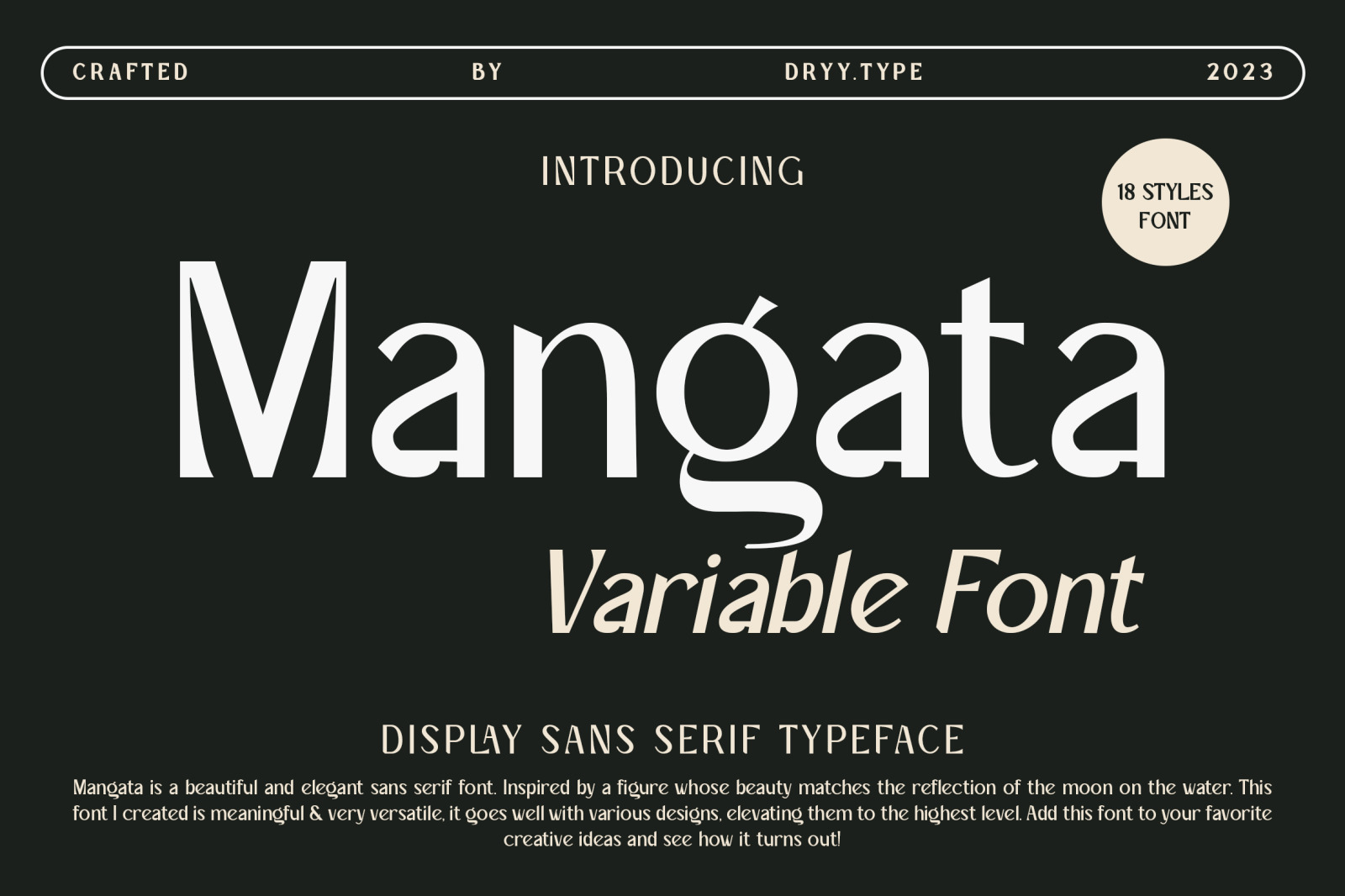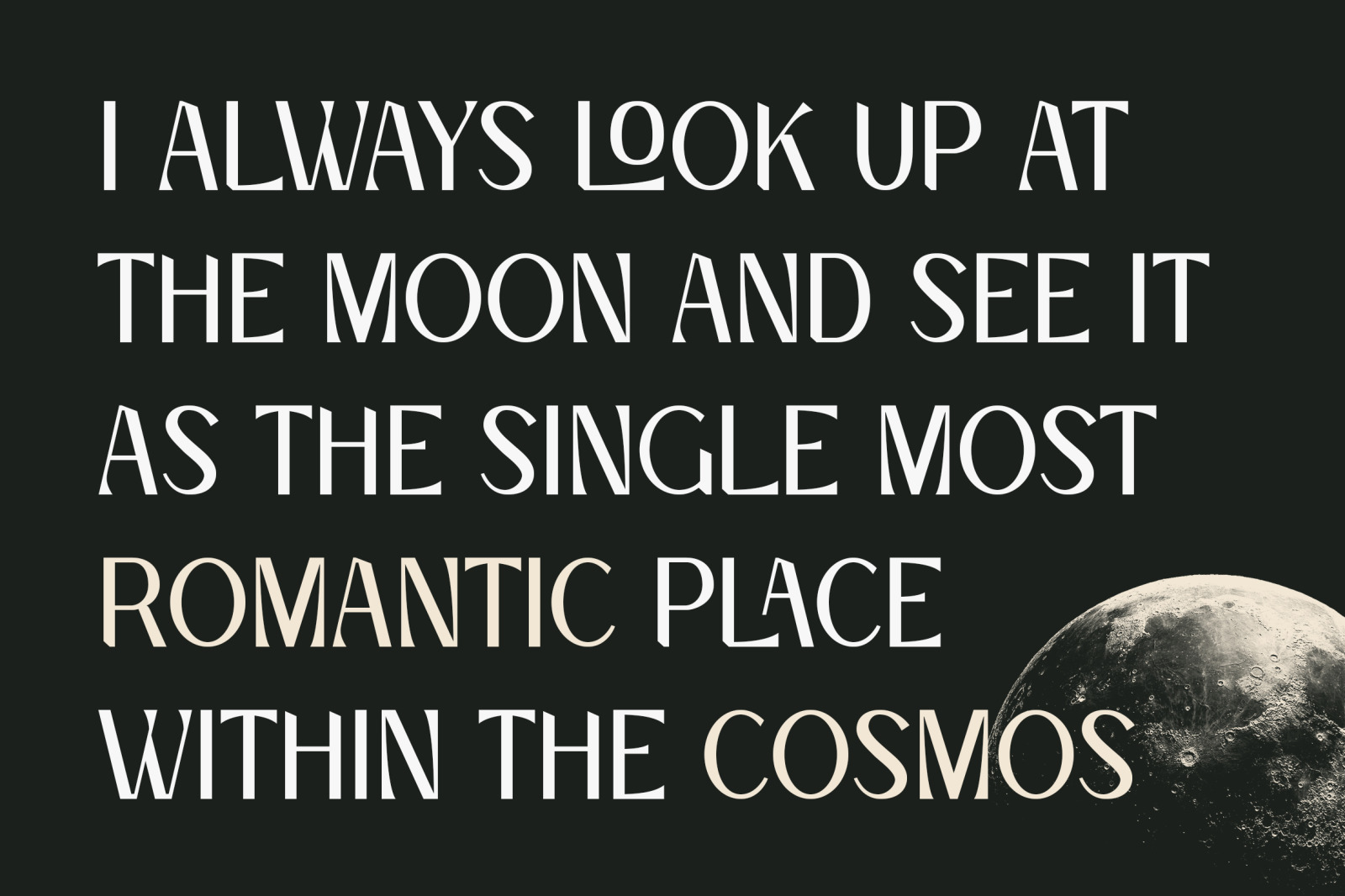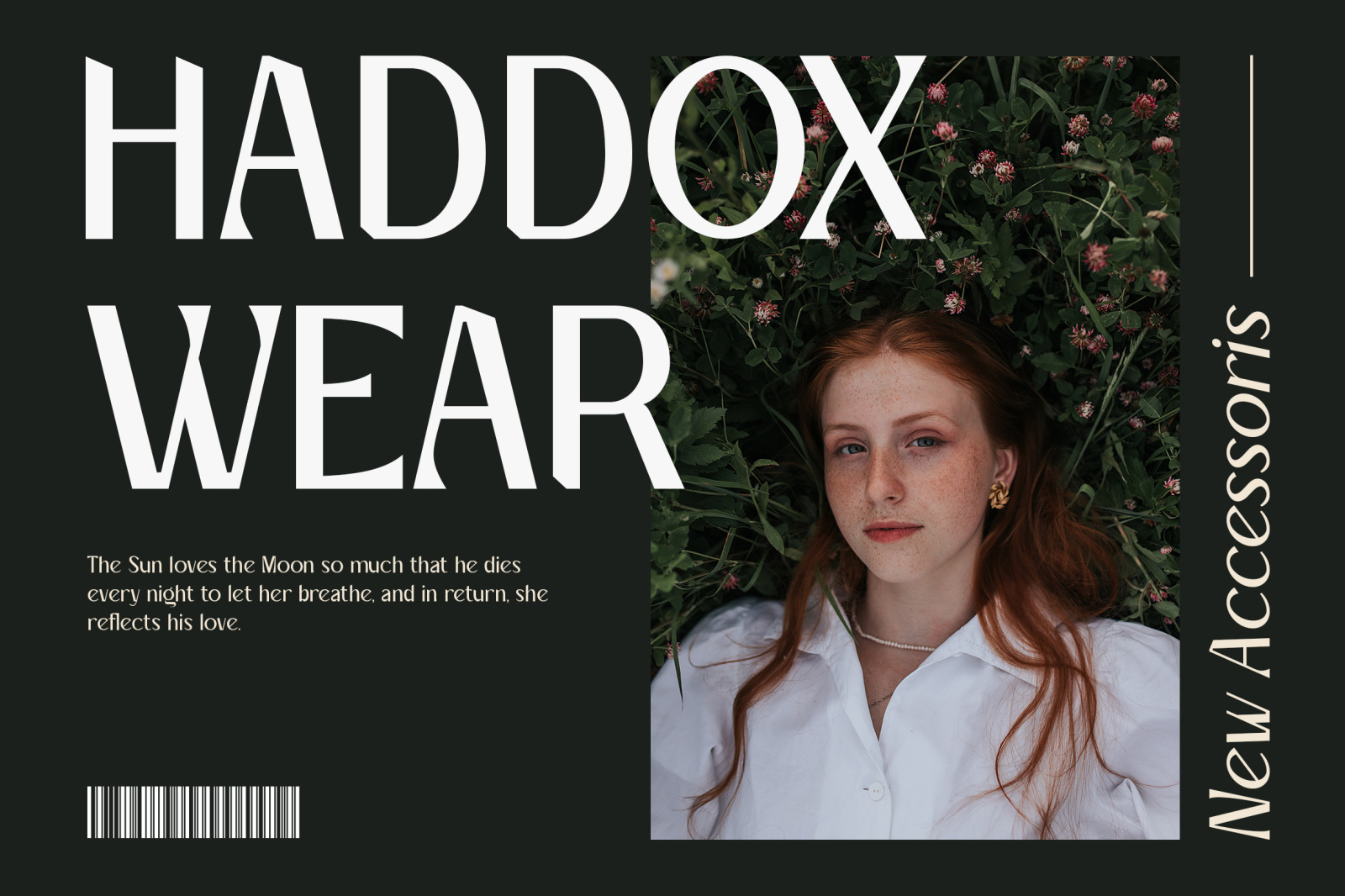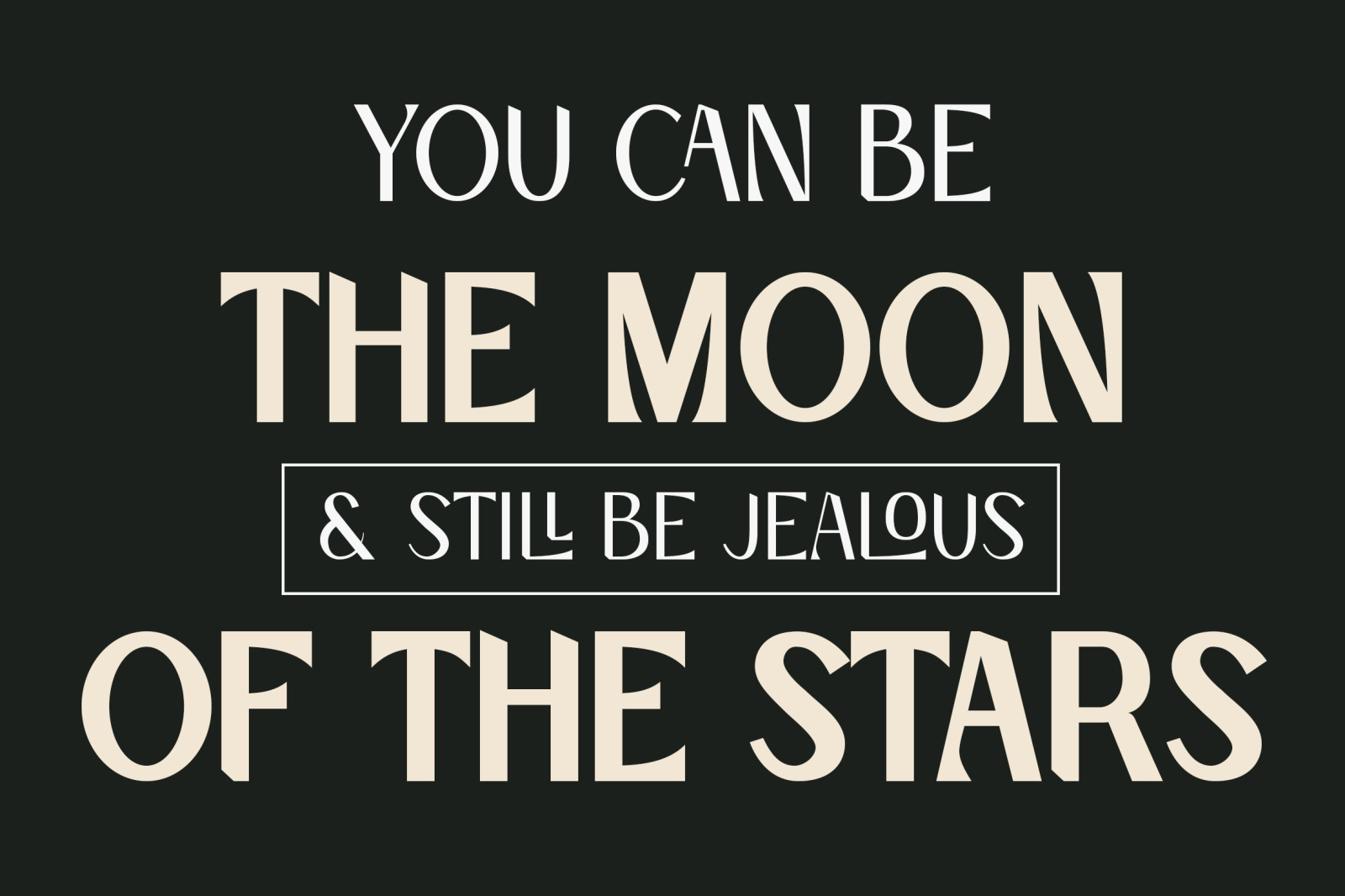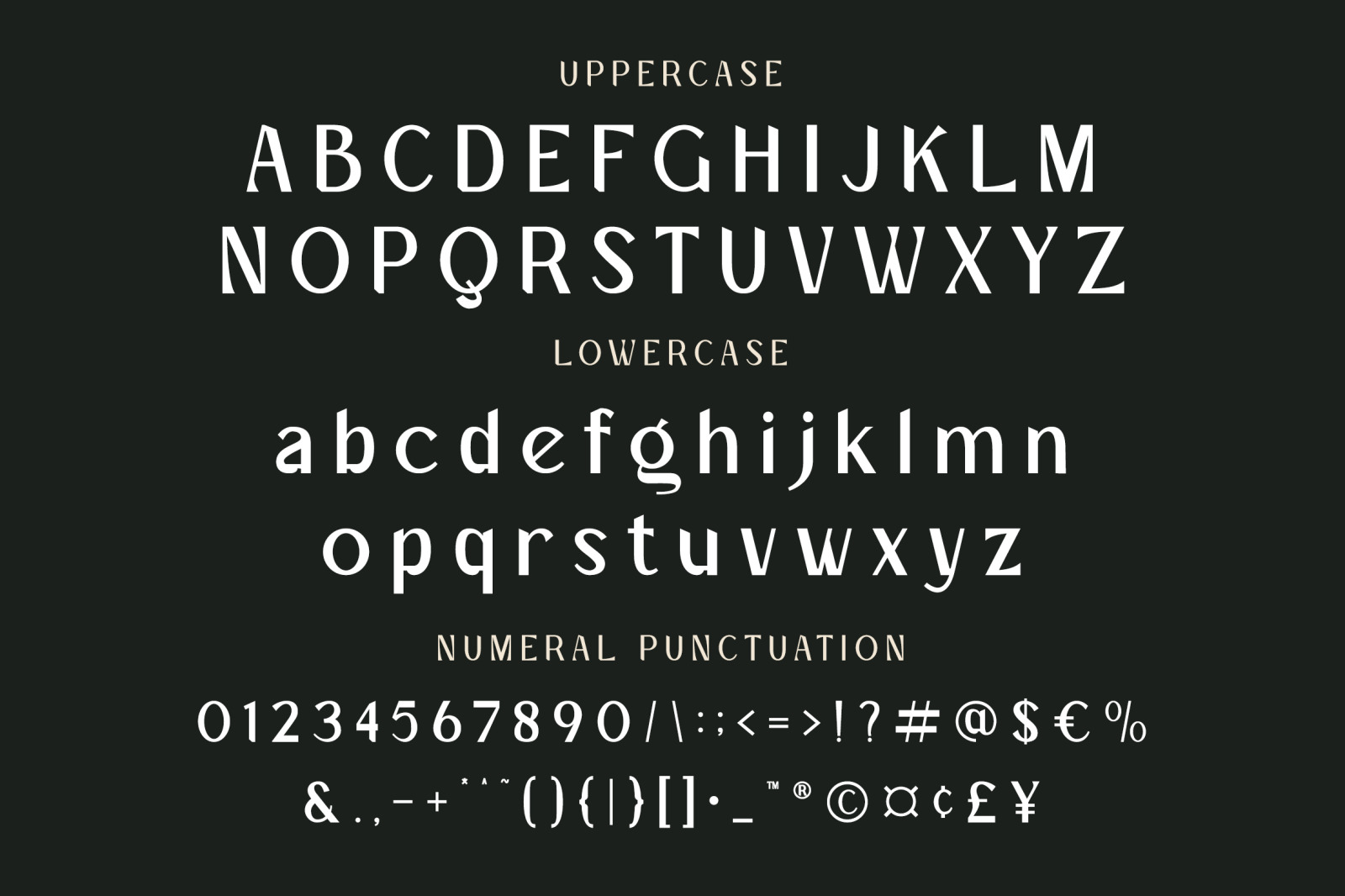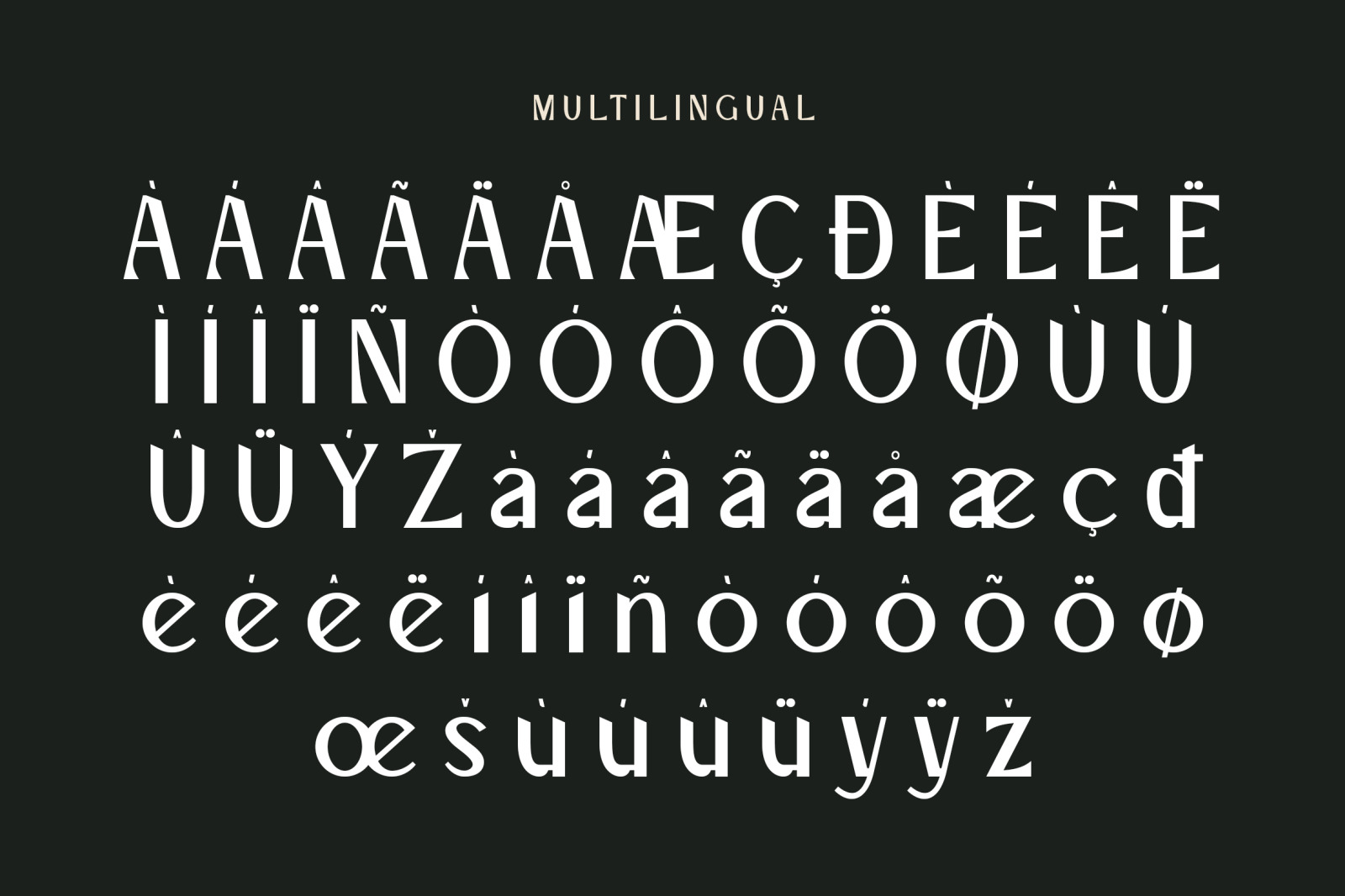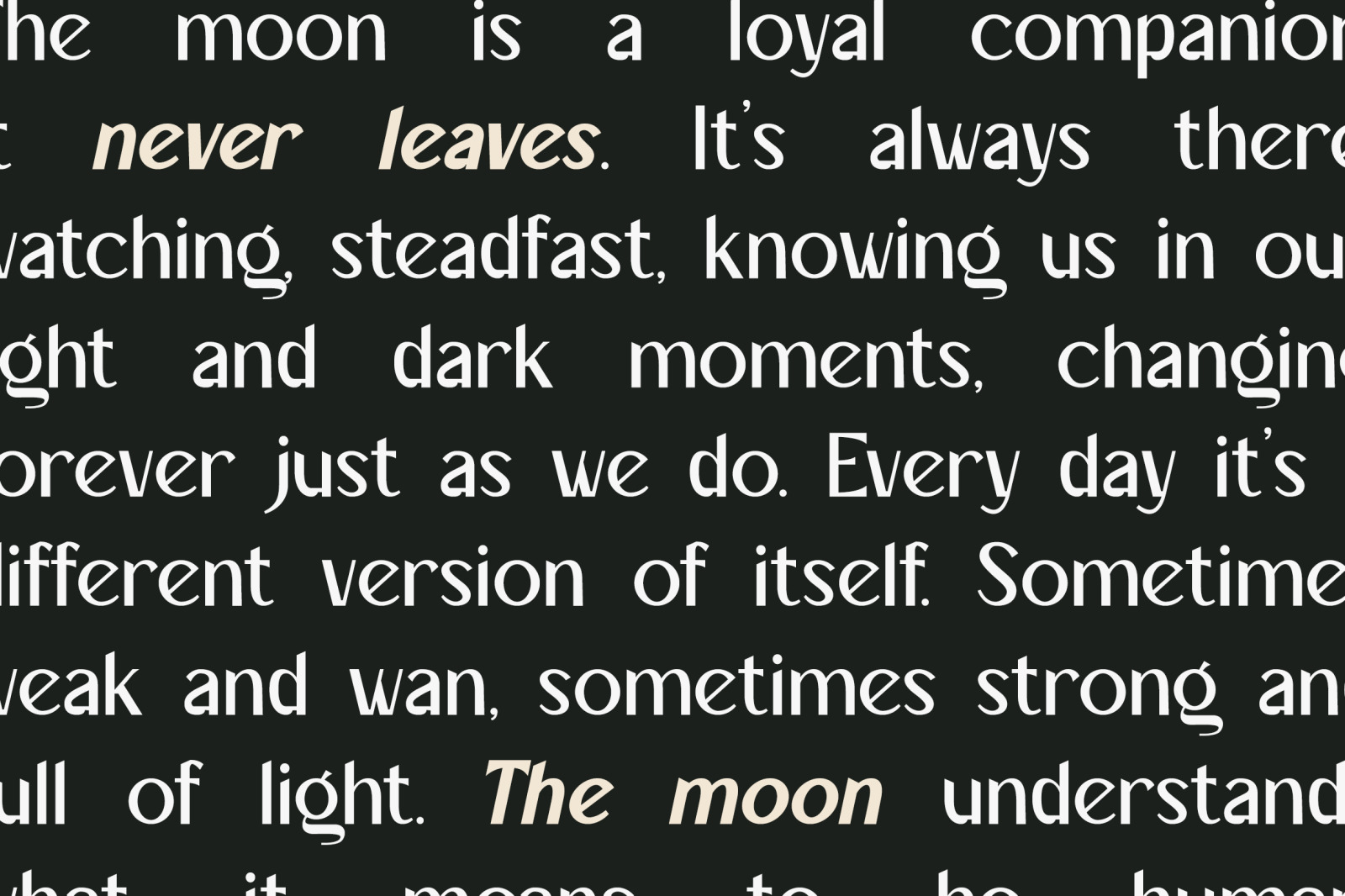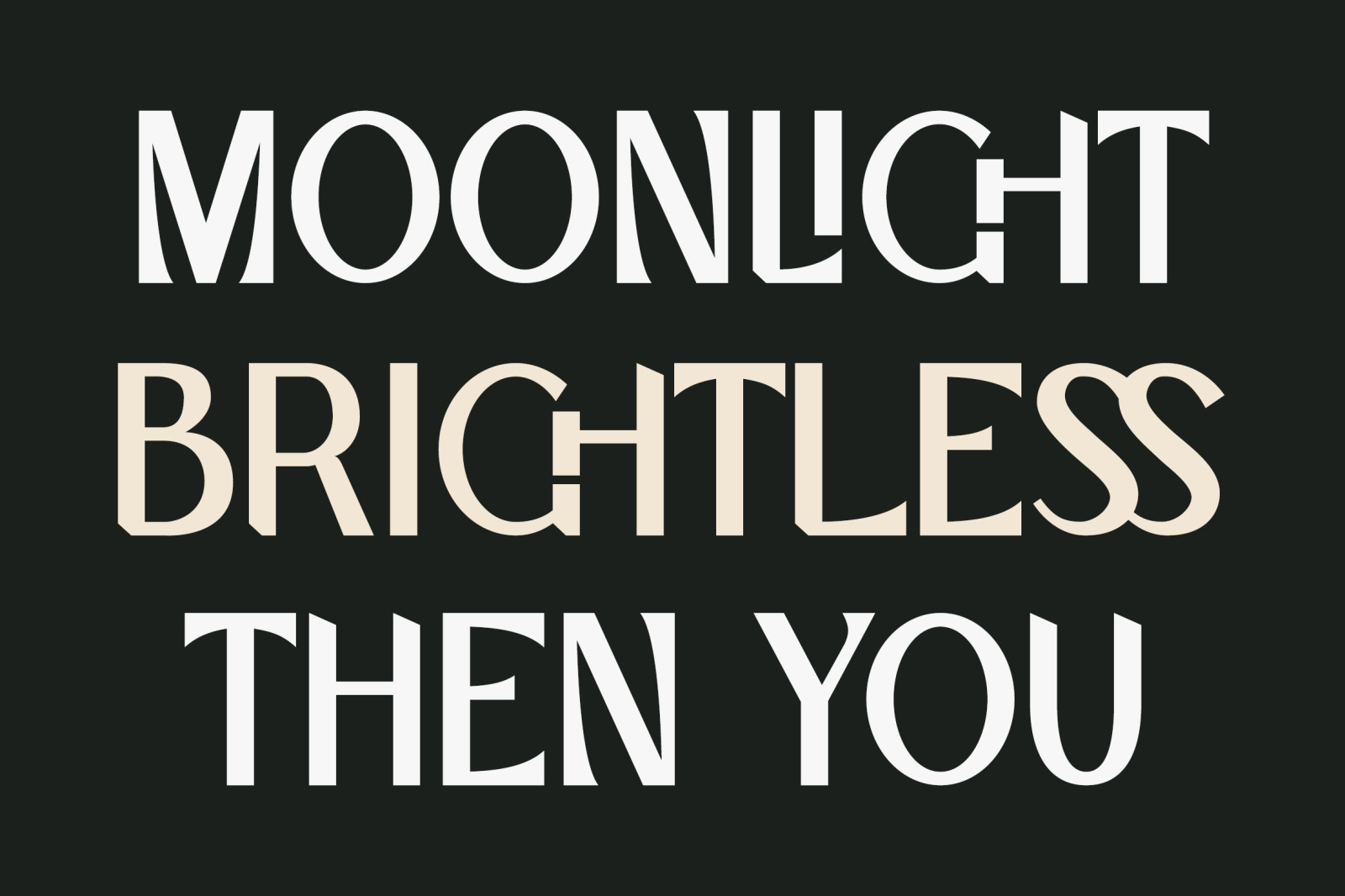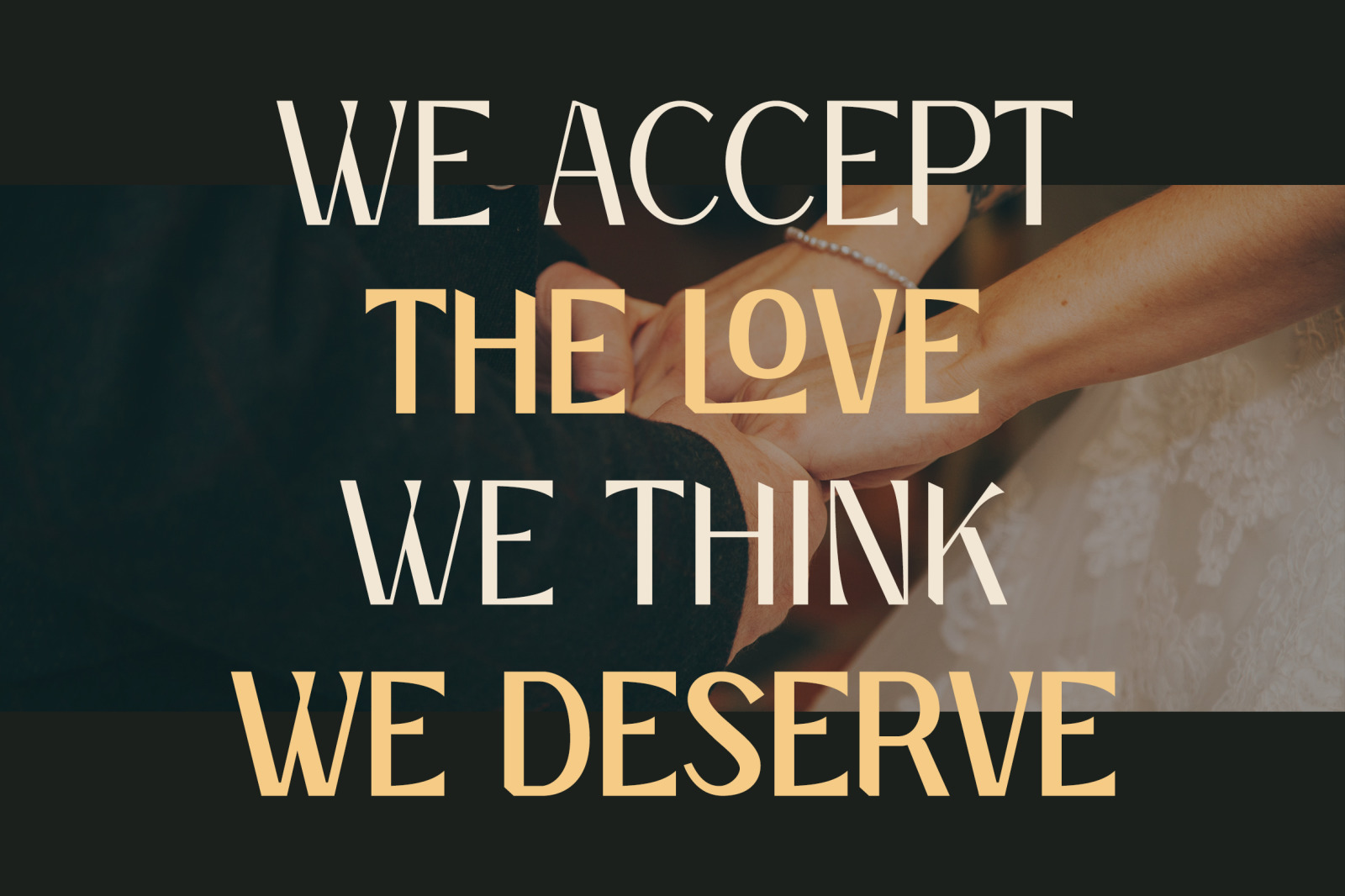
Mangata Typeface - Variable Font
Mangata Typeface
Mangata is a beautiful and elegant sans serif font. Inspired by a figure whose beauty matches the reflection of the moon on the water. This font I created is meaningful & very versatile, it goes well with various designs, elevating them to the highest level. Add this font to your favorite creative ideas and see how it turns out!
features: uppercase, lowercase, alternate, ligature & multilingual
variable font : Thin - Black + italic